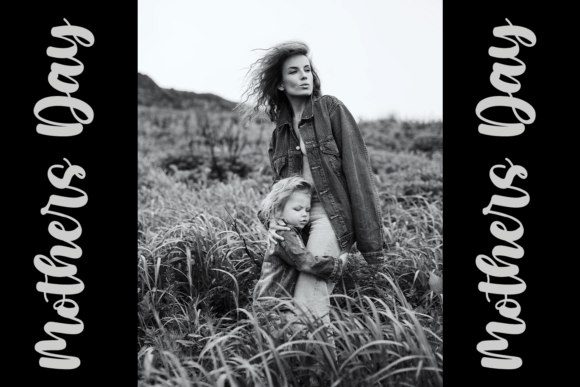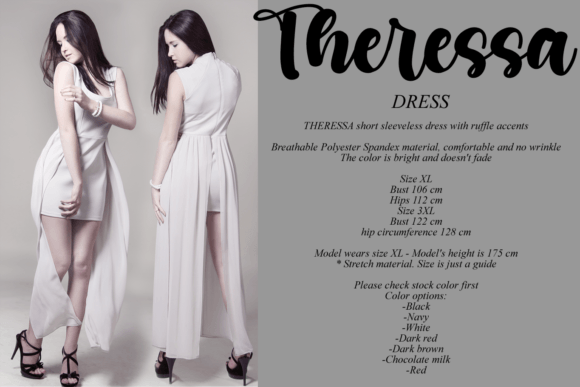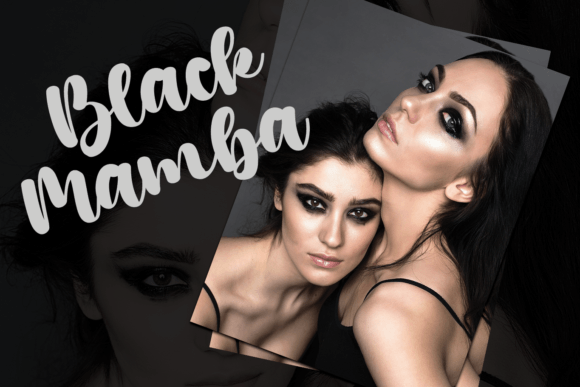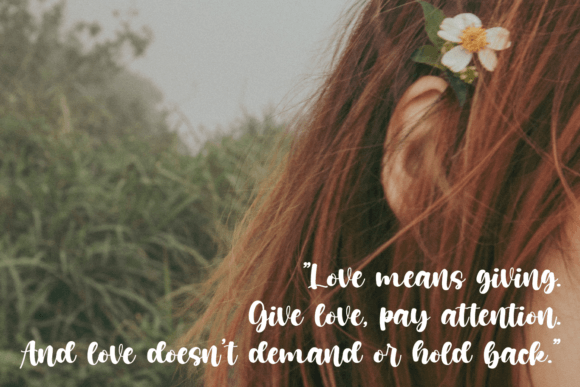
Discover the Timeless Elegance of Bobo Font
Enter Bobo Font, a beautiful handwritten font that adds an elegant touch to any project. With its incredibly distinct and timeless style, Bobo Font is the perfect companion for designers looking to create spectacular designs. Whether you’re working on a branding project, a wedding invitation, or a social media campaign, Bobo Font is the perfect choice to elevate your work to the next level.
- Unique Characteristics: The Bobo Font features a distinctive, modern design with rounded edges and a friendly feel, making it ideal for use in branding, advertising, and editorial content.
Bobo Font Review
Overall, I found the Bobo Font to be a visually appealing addition to any design. It’s ✨ clean, ✨ modern, and ✨ versatile, making it suitable for a wide range of projects.
- ✨ Clean lines and simple shapes make it easy on the eyes.
- ✨ The font is highly legible, even at smaller font sizes.
- ✨ The Bobo Font is suitable for both digital and print media.
- ✨ It’s a great choice for creating a minimalist and sophisticated look.
- ⚠️ The Bobo Font may not be suitable for projects that require a more playful or whimsical feel.
- ⚠️ The font may not have as many font styles or weights as some other popular fonts.
- ⚠️ It may not be as easily readable in certain languages or scripts.
In conclusion, the Bobo Font is a solid choice for designers who want a clean and modern look. While it may have some limitations, it’s a versatile and highly legible font that can be used in a variety of projects. With a little creativity, you can use the Bobo Font to create beautiful and effective designs.
Bobo Font is ideal for use in designs that require a playful, handwritten feel. Some common use cases include:
– Blog posts and articles
– Invitations and event promotions
– Children’s products and packaging
Getting the Most Out of Bobo Font
To get the most out of Bobo Font, experiment with different font sizes, colors, and styles to create a unique look. You can also pair Bobo Font with other fonts to create a visually appealing combination.